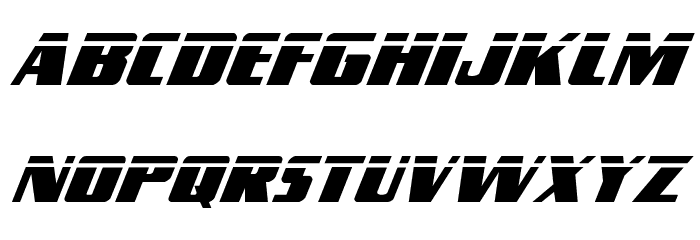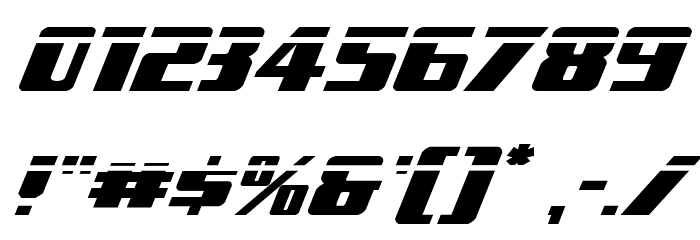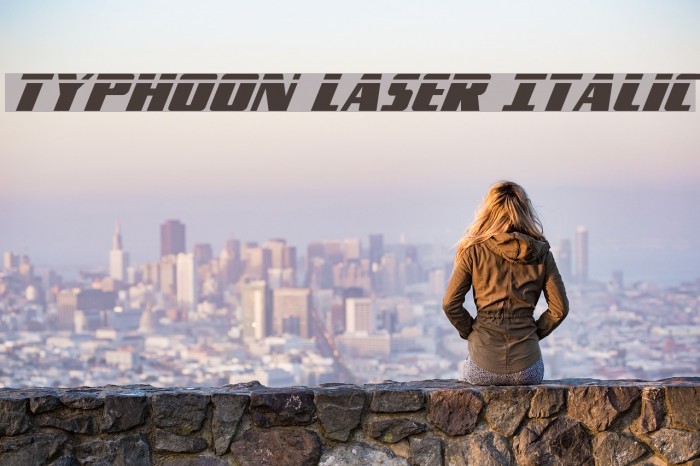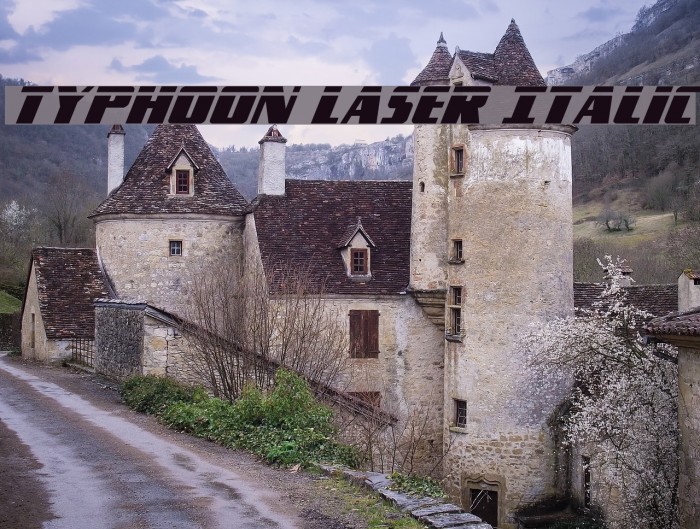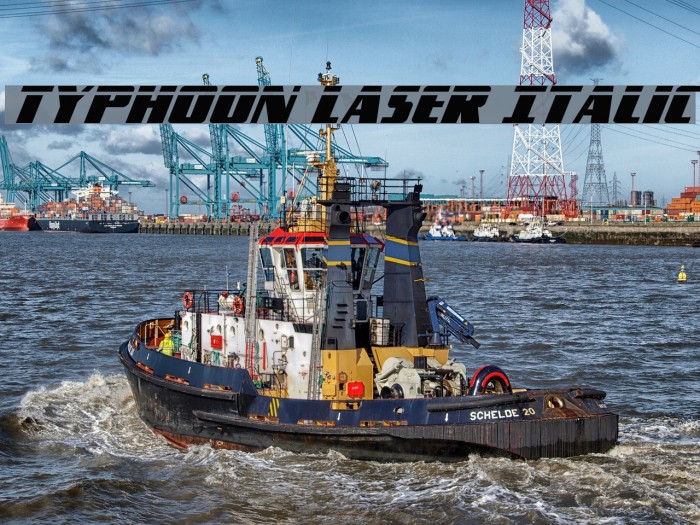
Typhoon Laser Italic Font
This font features a bold, italicized style with sharp, angular lines and a futuristic appearance. The characters are designed with a forward-leaning slant, giving a sense of motion and speed. The strokes are thick and consistent, providing a strong visual impact. The uppercase and lowercase letters maintain a uniform height, enhancing readability while preserving the dynamic aesthetic. The numerals and special characters are crafted to match the bold and angular theme, making them suitable for attention-grabbing designs.
A bold, italicized font with angular lines and a futuristic look.
- Proposed Projects: Ideal for sci-fi themed designs, video game titles, posters, and branding that requires a modern and dynamic appearance.